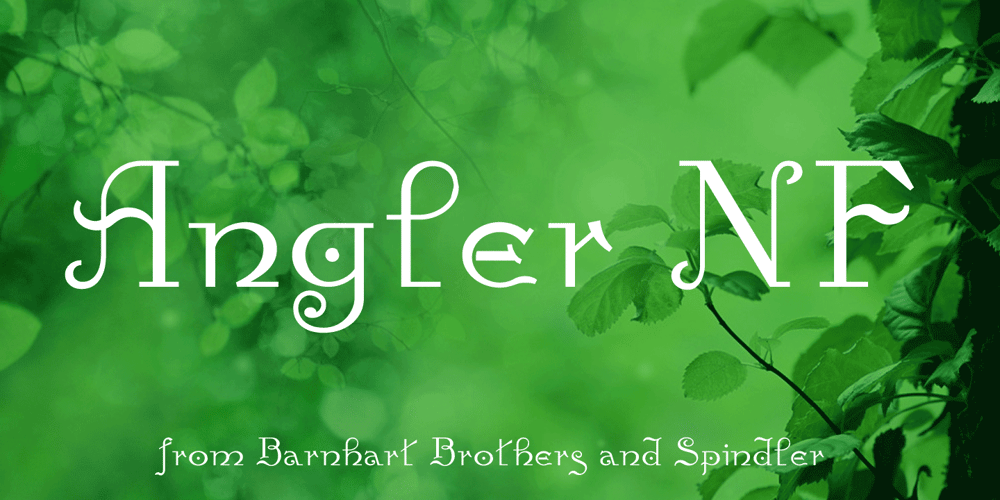
Angler NF Font Family was designed by published by Nick’s Fonts. Angler NF contains 1 styles and family package options. The 1895 specimen book from Barnhart Brothers and Spindler featured this whimsical typeface, originally called Anglo. An unusual combination of elegance and quirky charm. Both versions of this font support the Latin 1252, Central European 1250, Turkish 1254 and Baltic 1257 codepages.